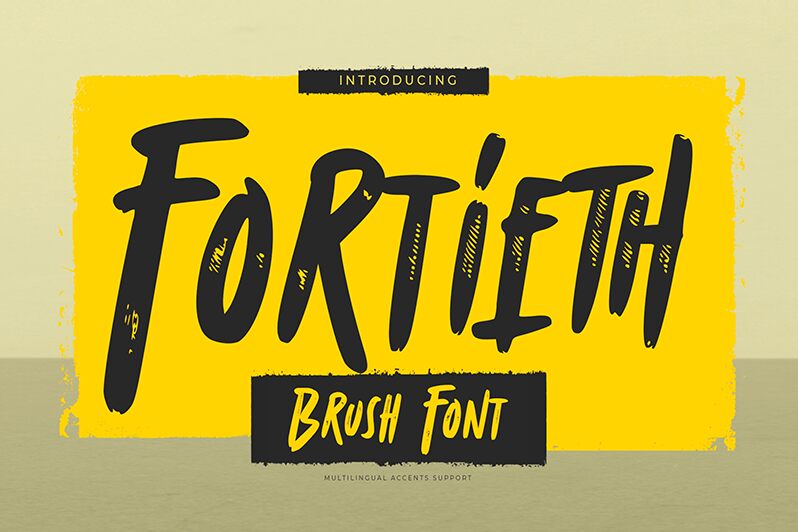
Fortieth
Fortieth font designed by Gassstype is a free brush condensed font with a playful and carefree appearance. Its letters are slim, tall, and uneven, with rough outlines that provide an authentic, natural hand-drawn texture. It has a casual aesthetic and brush-like appearance that offer an expressive flair to any design.
Application-wise, excellent use cases of Fortieth font are logos, magazine covers, posters for concerts or art events, packaging for organic food brands or cosmetic products, web banners or ads on social media platforms like Instagram or Facebook. Other cases include headers for blogs about nature topics such as gardening tips and recipes using fresh ingredients.